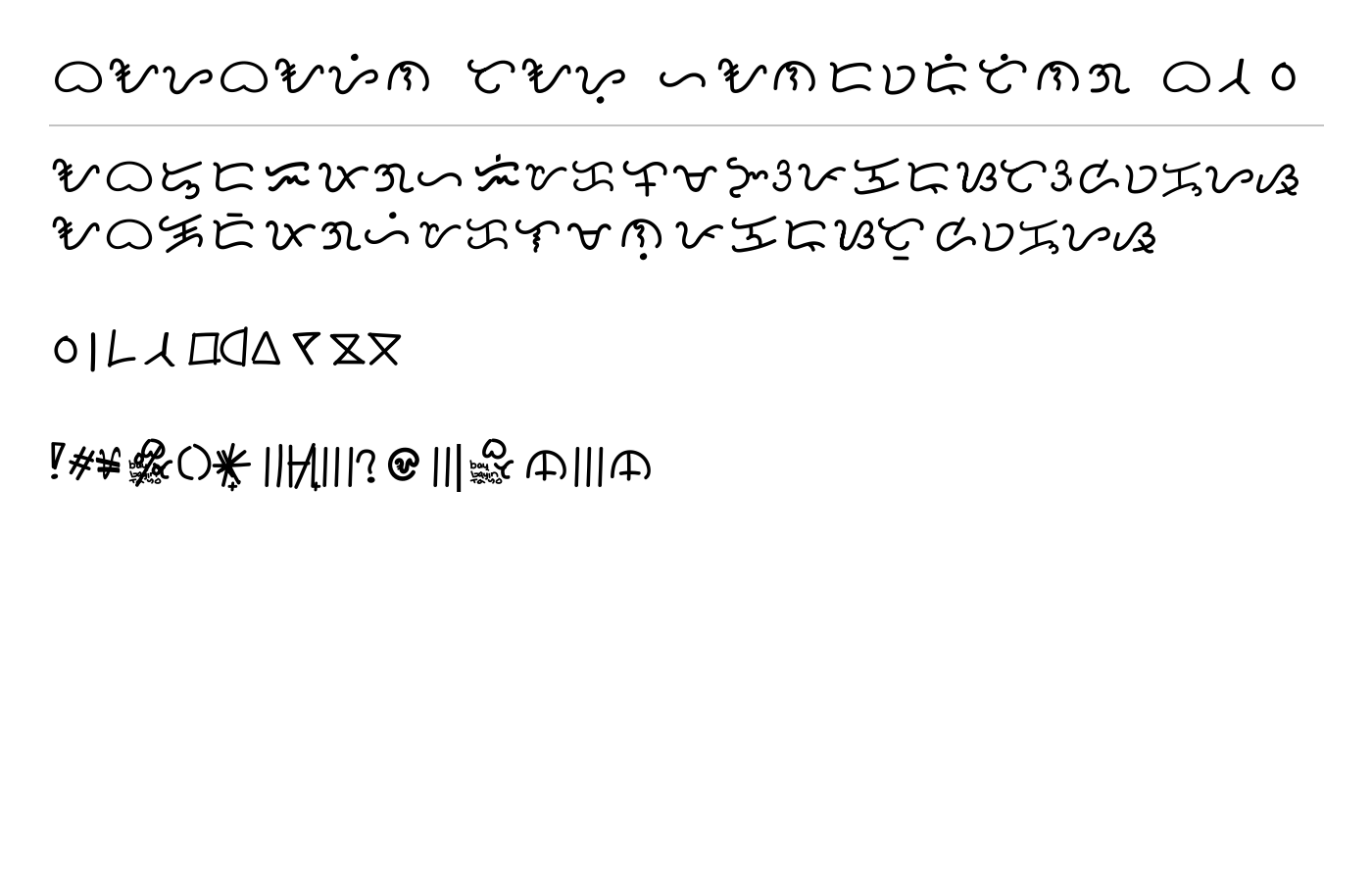
Baybayin Tayo Handwriting B30 is a unique decorative script font inspired by ancient Filipino Baybayin writing, featuring fluid, hand-drawn glyphs with an organic and playful feel. Its light stroke weight and casual, curvilinear forms make it ideal for creative projects seeking a cultural, artistic, or handcrafted look, perfect for logos, posters, and cultural branding that wants to evoke tradition with a modern twist.
Baybayin Tayo Handwriting B30 Font
About Baybayin Tayo Handwriting B30 Font